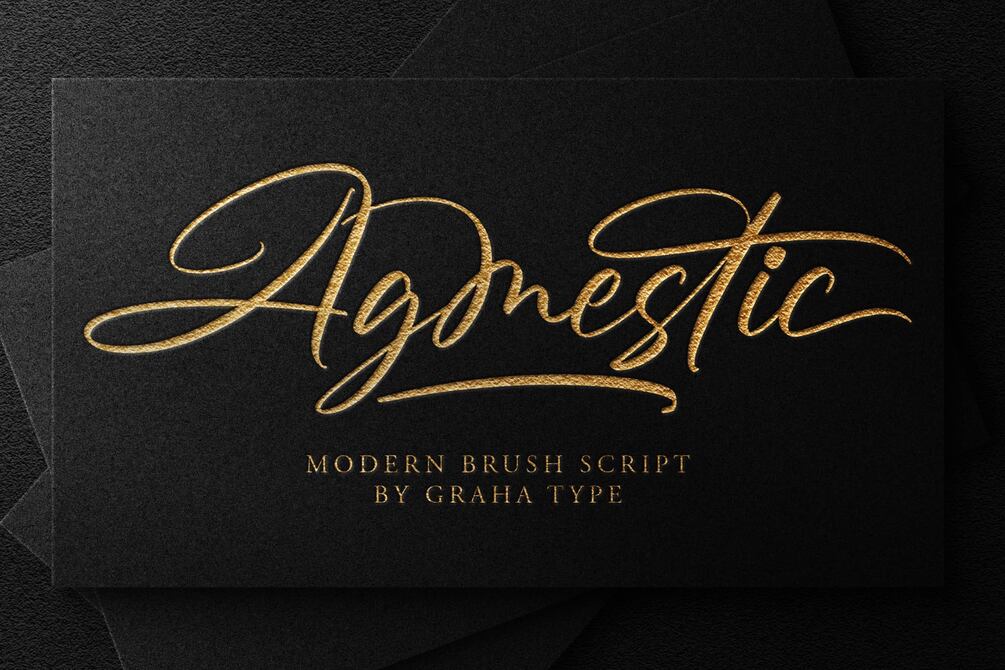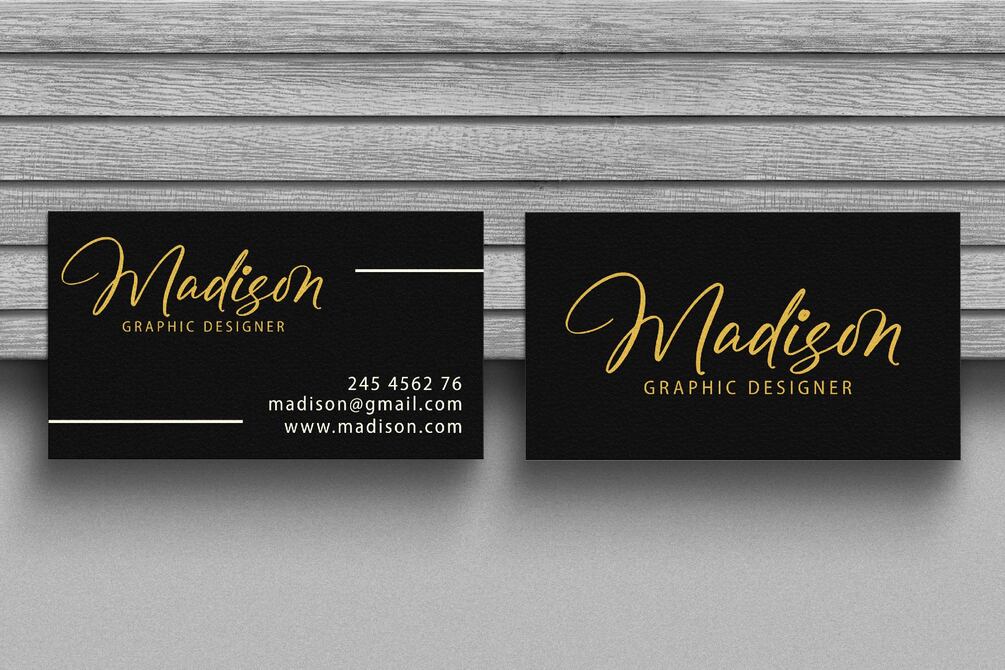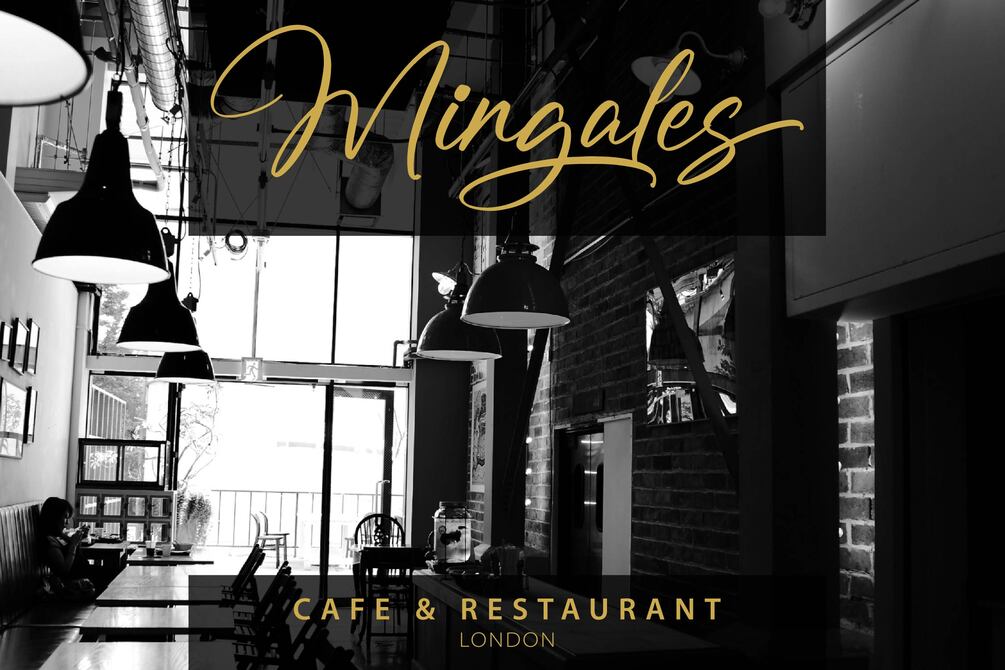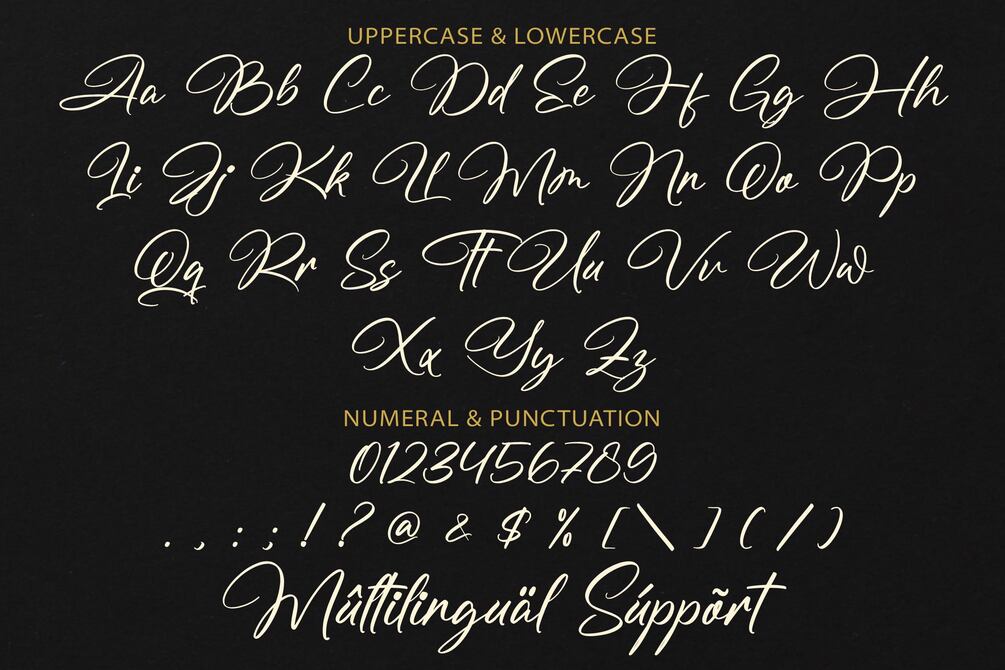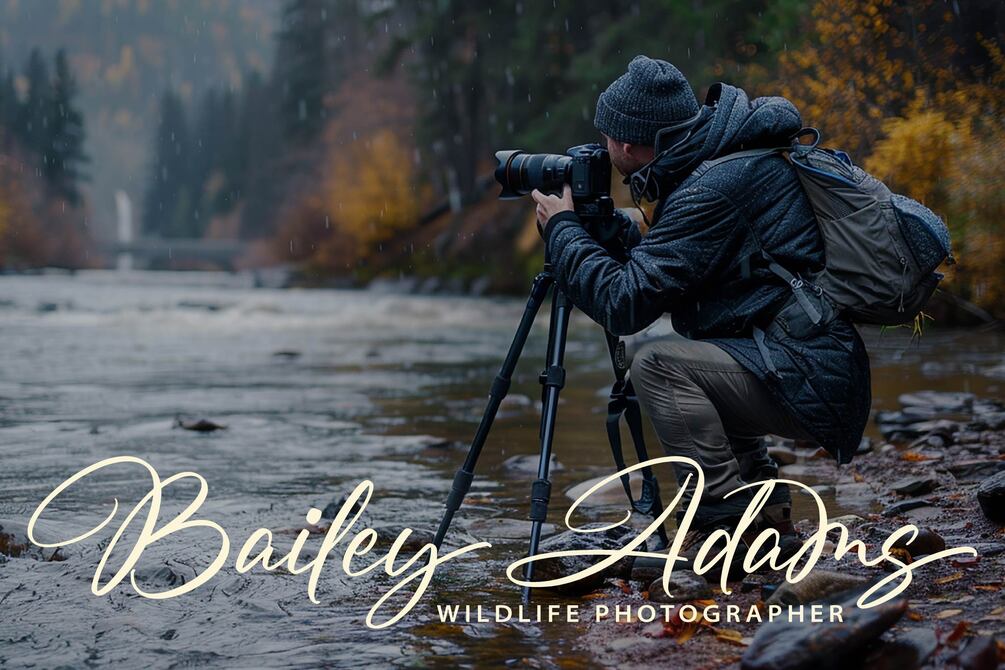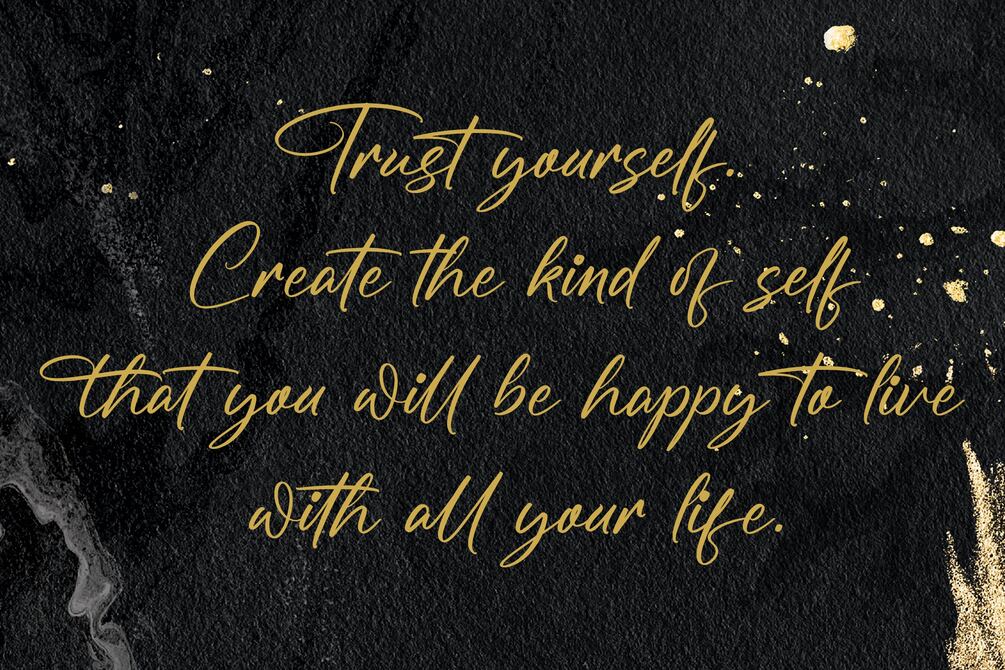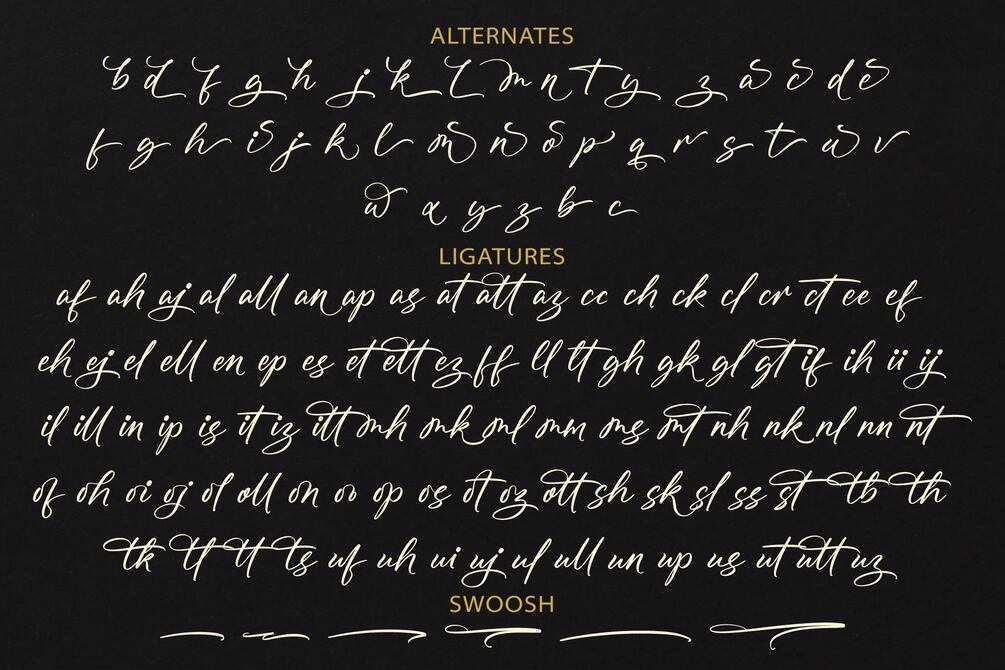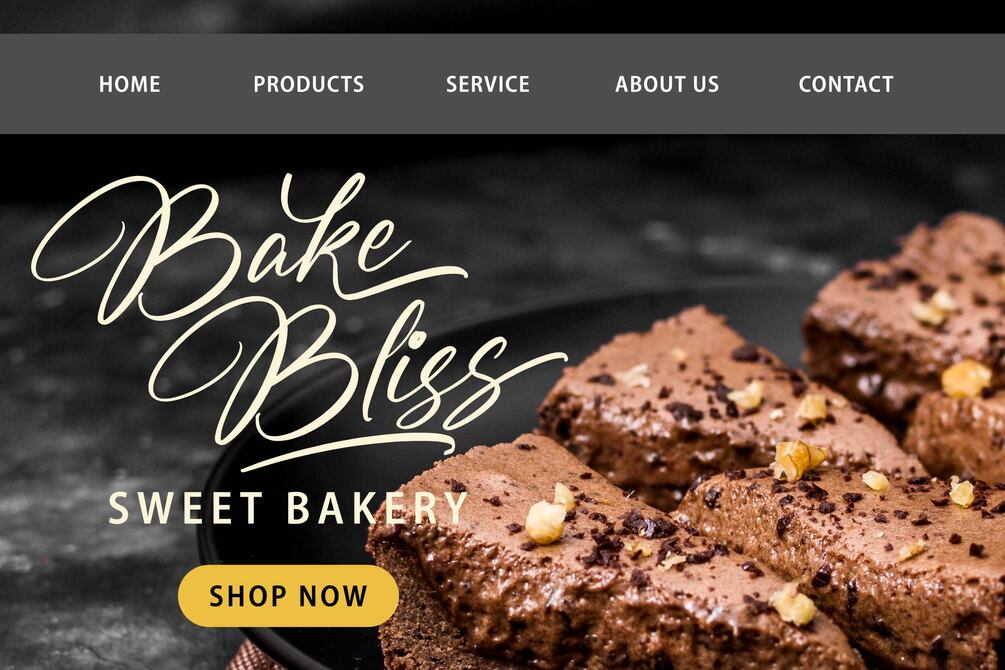
Agmestic - Modern Brush Script Font
Agmestic is a modern brush script font that blends the elegance of calligraphy with a contemporary flair. Crafted with smooth, dynamic brush strokes, Agmestic exudes a vibrant and personable charm. Its softly curved letterforms and fluid lines impart a warm, inviting feel, making it an ideal choice for designs that require a casual yet stylish touch.
Alternates and Ligatures
Multilingual Support